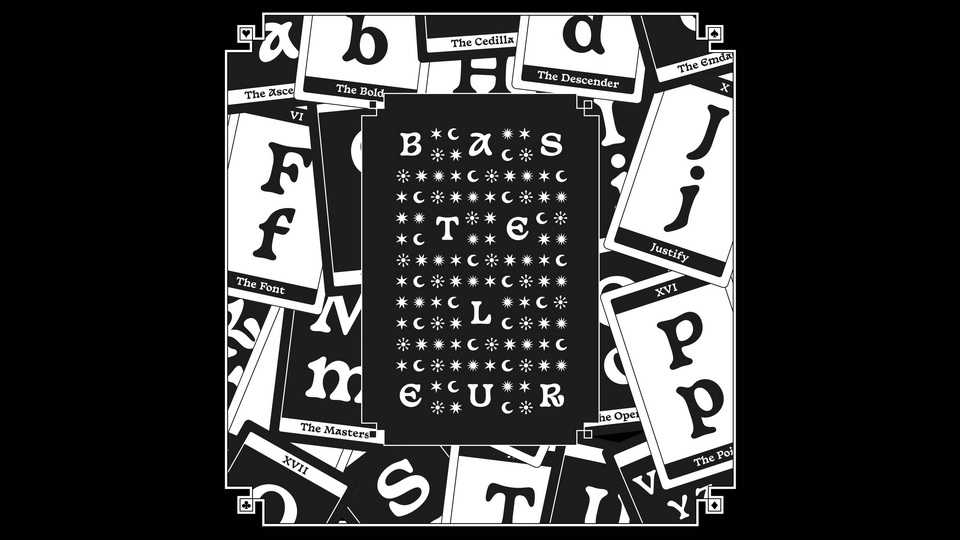
Download Basteleur font, a typeface designed with the Tarot de Marseille in mind. This led to a funny blend of medieval-ish and cooperblack-ish typeface.